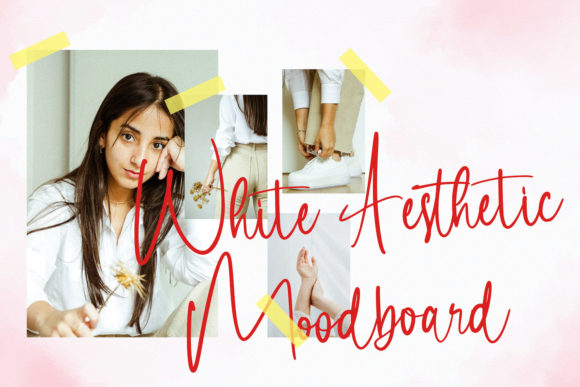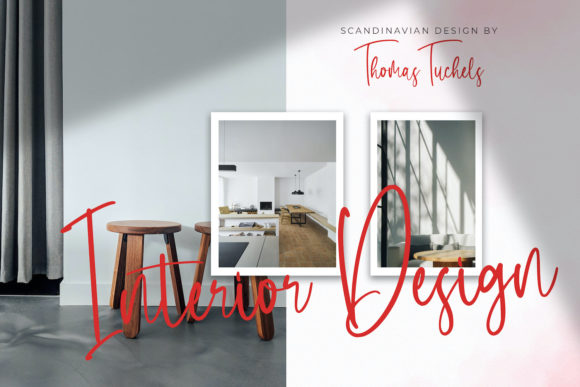
About Settary Tenjutsu Font
Settary Tenjutsu is a delicate, elegant and flowing handwritten font. It has beautiful and well balanced characters and as a result, it matches a wide pool of designs. Add it to your most creative ideas and notice how it makes them come alive!